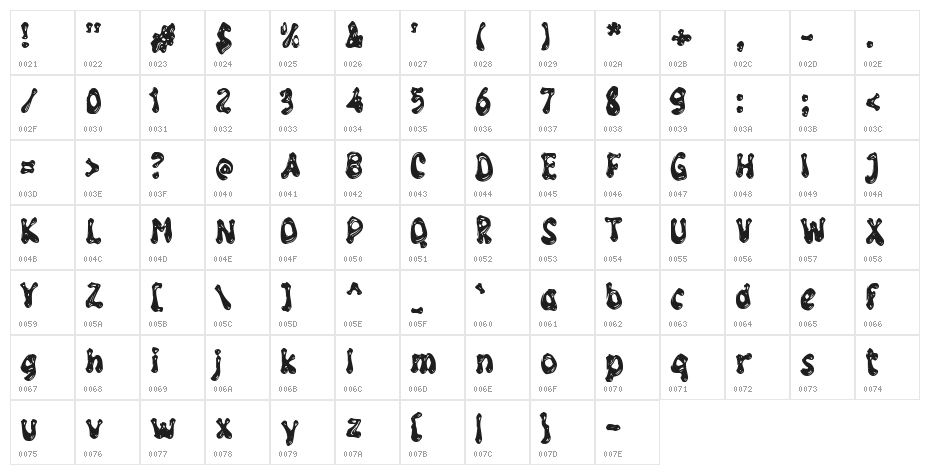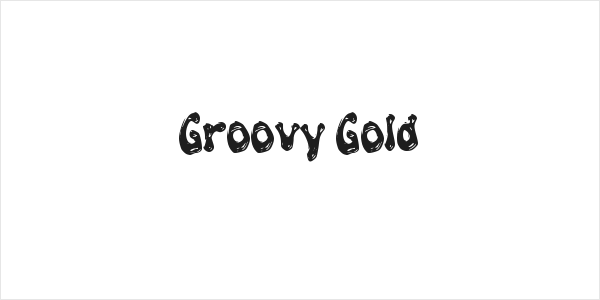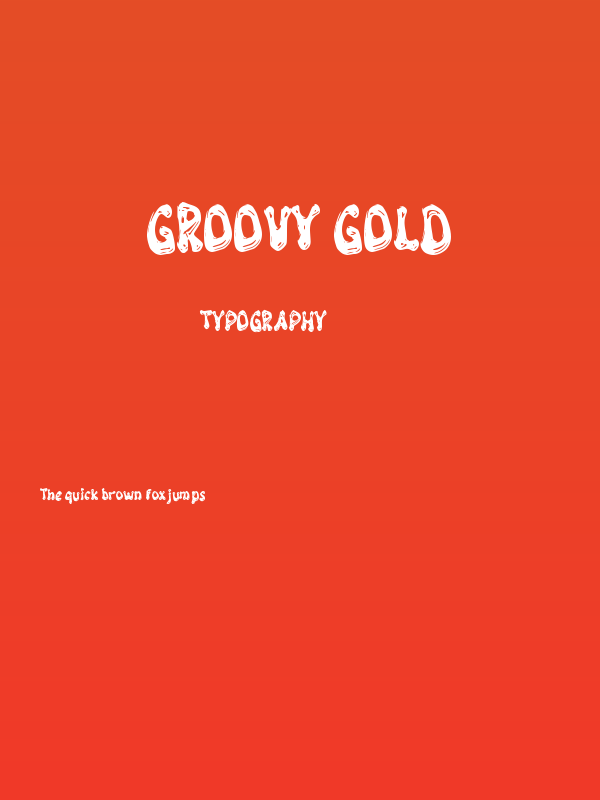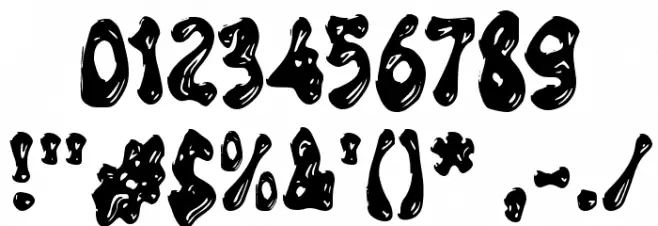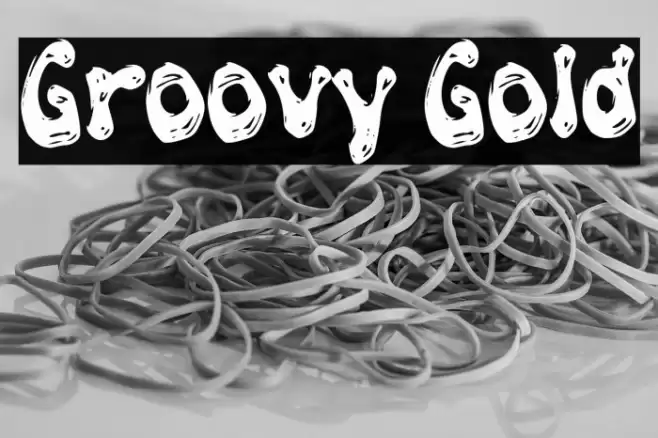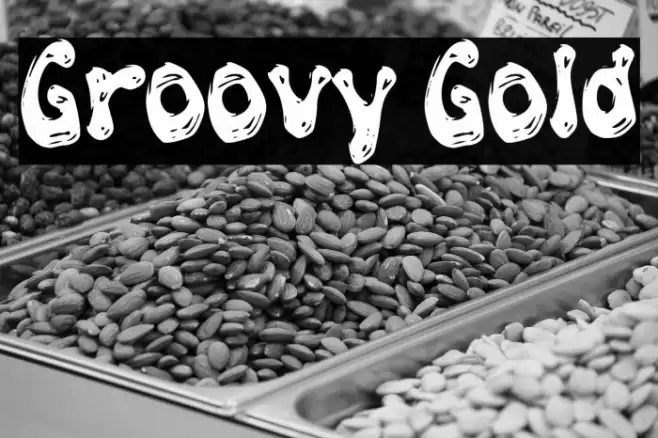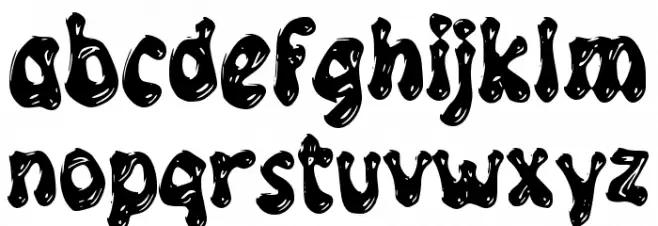
Groovy Gold Font
Groovy Gold Description
This font features a bold, playful design with a groovy, retro vibe. The characters are thick and rounded, with a hand-drawn appearance that gives them a unique, artistic flair. The strokes are uneven, creating a dynamic and lively look. This font is highly decorative, with a whimsical style that captures attention and adds a sense of fun to any project. The letters have a consistent weight, contributing to a cohesive and harmonious appearance. The overall design is reminiscent of 1960s and 1970s aesthetics, making it perfect for projects that aim to evoke nostalgia or a vintage feel.
| Proposed Projects | Ideal for posters, album covers, retro-themed events, and creative branding. |